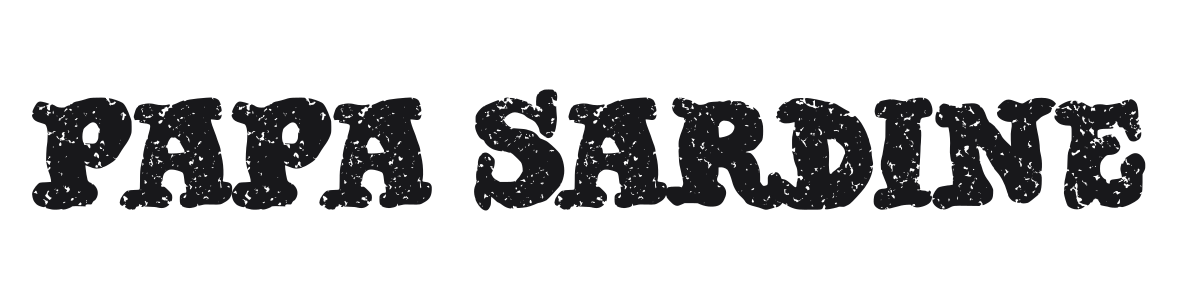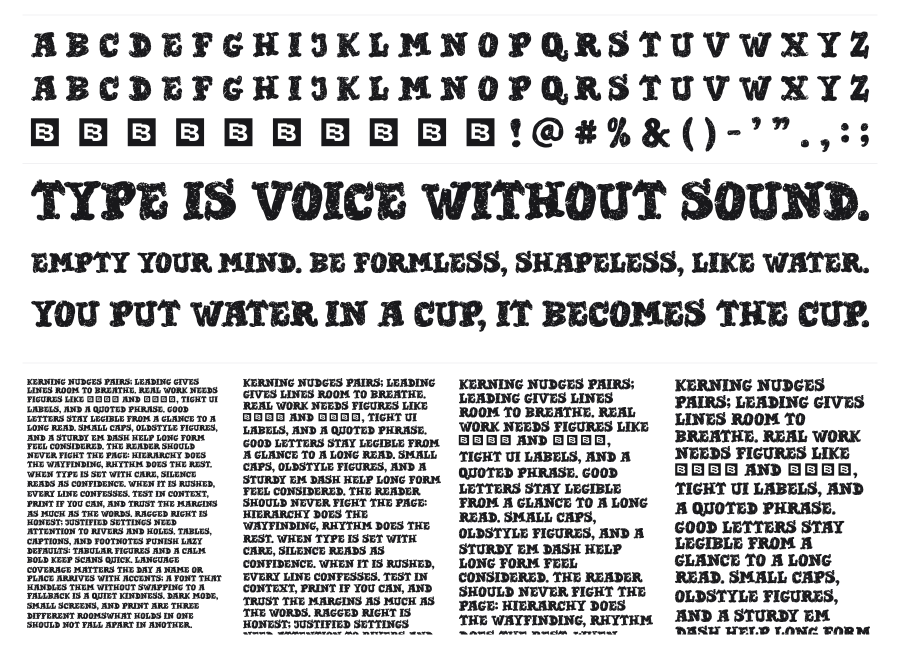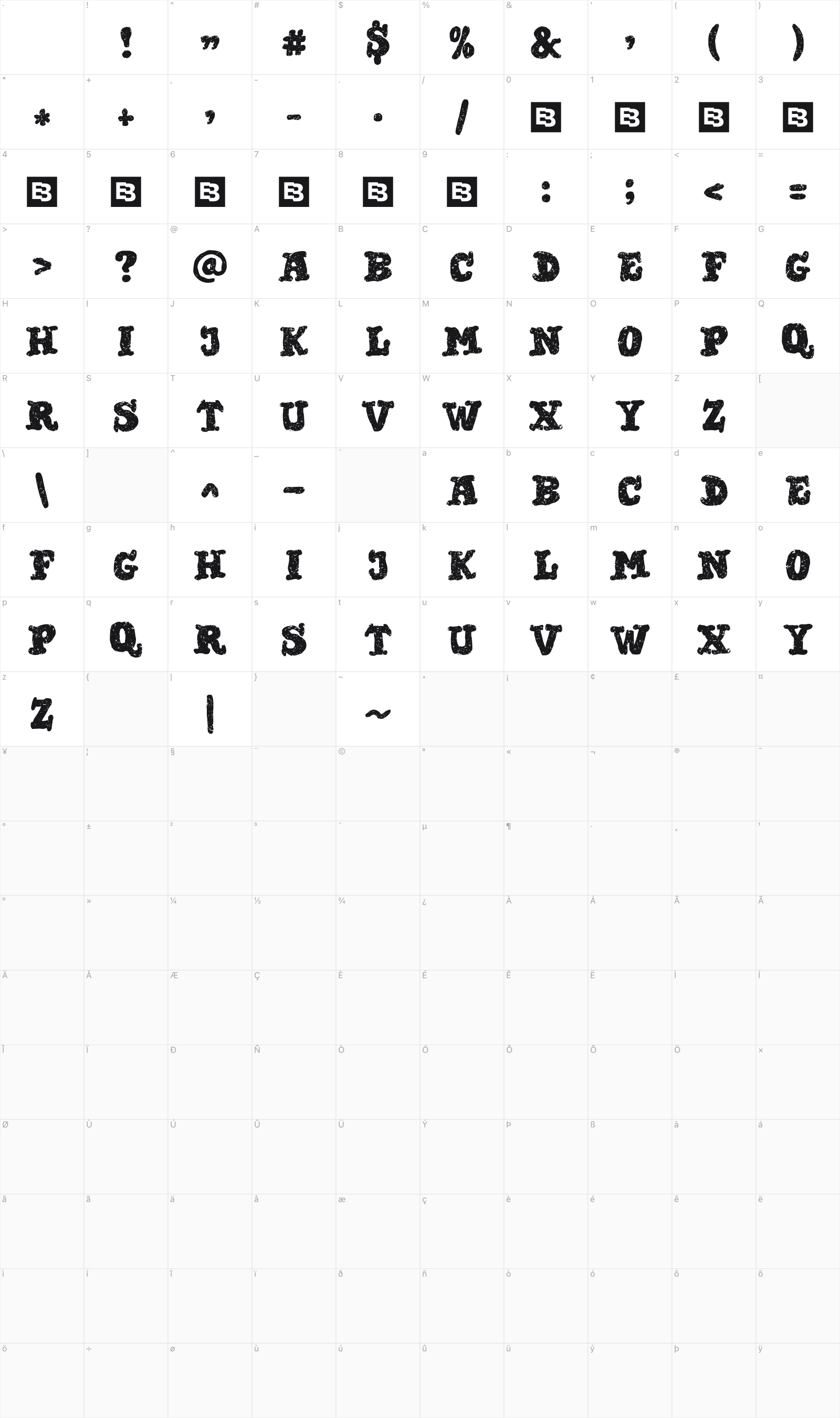
Papa Sardine
by Eko Bimantara
Papa Sardine is a heavy distressed slab-serif with a battered, ink-worn texture that recalls aged wood type and hand-stamped printing. Wide proportions and chunky serifs give it a dense, commanding presence at large sizes. The rough erosion throughout the strokes makes it feel authentically worn rather than artificially styled.